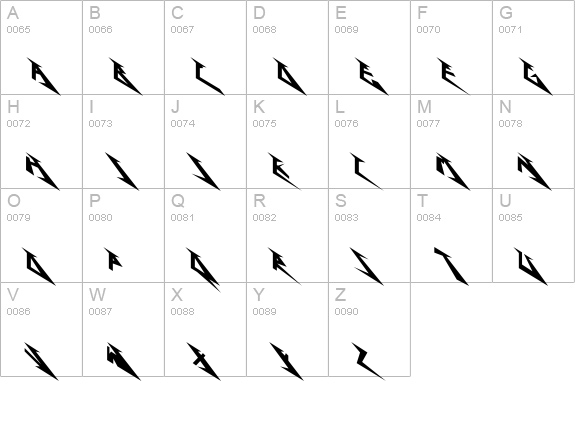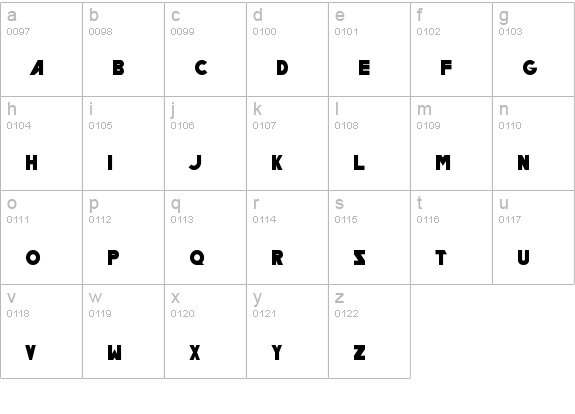
Pastor of Muppets Font Details
Introducing Pastor of Muppets, a whimsical and playful font that will bring a touch of joy and charm to your design projects. With its lively and distinct letterforms, this font will capture the imagination of audiences young and old alike. Designed with meticulous attention to detail, Pastor of Muppets exudes a sense of warmth and friendliness, making it perfect for a variety of applications. Whether you're working on a children's book, a party invitation, or a creative branding project, this font will add a delightful touch that is sure to make your designs stand out. What's even better is that Pastor of Muppets is available for free download at FontsMarket.com. Yes, you read that right! This incredible font can be yours without spending a dime. Simply head over to FontsMarket.com, and with just a few clicks, you'll have access to this whimsical gem. But don't let its playful appearance fool you – Pastor of Muppets is also highly versatile. It comes in a variety of weights and styles, allowing you to experiment and find the perfect combination for your specific needs. From thin and delicate to bold and eye-catching, this font has it all. So, why wait? Discover the magic of Pastor of Muppets today and let your creativity run wild. Download it for free at FontsMarket.com and unlock a world of endless possibilities. Whether you're a professional designer or a hobbyist, Pastor of Muppets will surely become an invaluable addition to your font library. Embrace the whimsy, embrace the joy – Pastor of Muppets is here to make your designs shine!